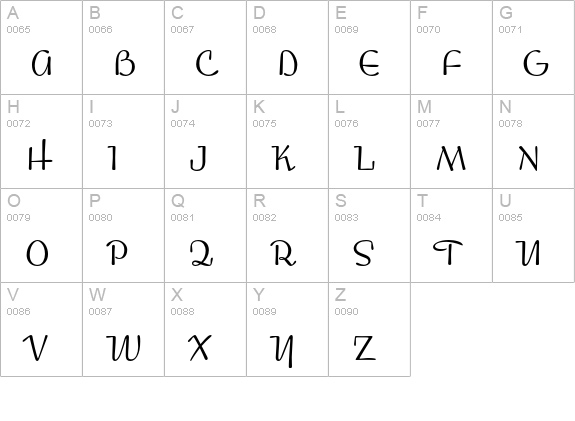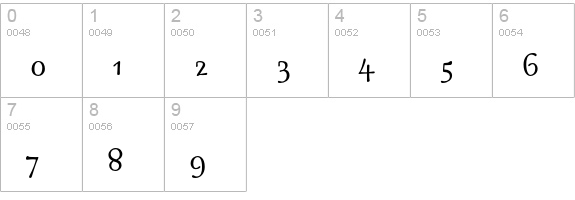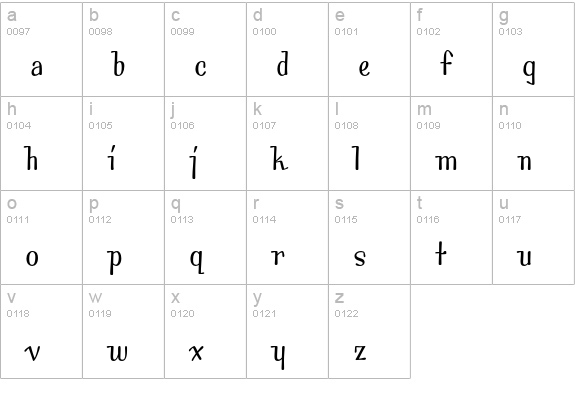
Bossa Nova MVB Std Font Details
Bossa Nova MVB Std is a sophisticated and elegant font that exudes a sense of style and class. With its flowing lines and gentle curves, this font is perfect for adding a touch of charm to your designs. Whether you are working on a project that requires a refined look or simply want to elevate your text to the next level, Bossa Nova MVB Std is sure to impress. The best part? This stunning font is available for free download at FontsMarket.com. So, you can easily access this beautiful typeface and use it in your personal or commercial projects without any cost. Enhance your designs with the timeless beauty of Bossa Nova MVB Std and make a lasting impression on your audience.